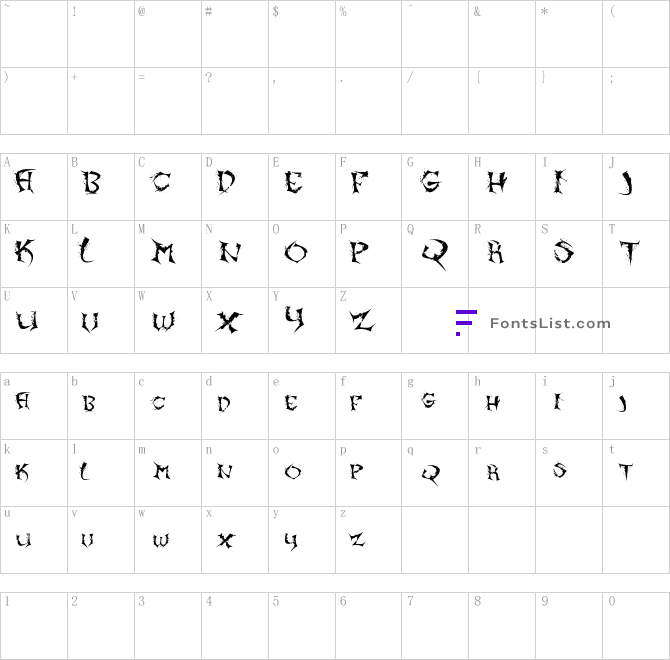
- Font Name:Asian Guy
Asian-Guy.ttf is a very beautiful artistic font, Asian-Guy.ttf is widely used in the design and printing of various books and pictures,Asian-Guy.ttf has a strong visual impact,Asian-Guy.ttf is a commonly used font in newspapers, magazines and books, and is used in posters, e-commerce Poster design, store design, logo design, font design and other fields.Asian-Guy.